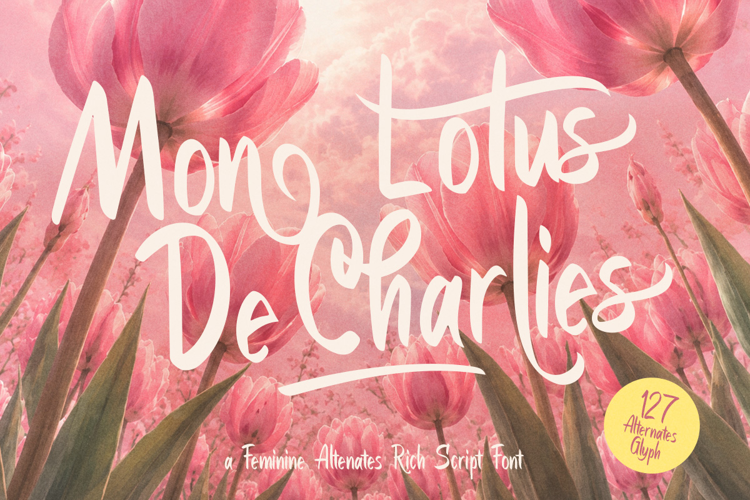
Mon Lotus De Charlies Font
Mon Lotus De Charles flows with a charming handwritten rhythm, combining elongated strokes, expressive curves, and playful swashes into a feminine script full of character. Its organic letterforms give each word a relaxed, artistic quality, while the elegant flourishes add a romantic touch.
by Letterhend Studio